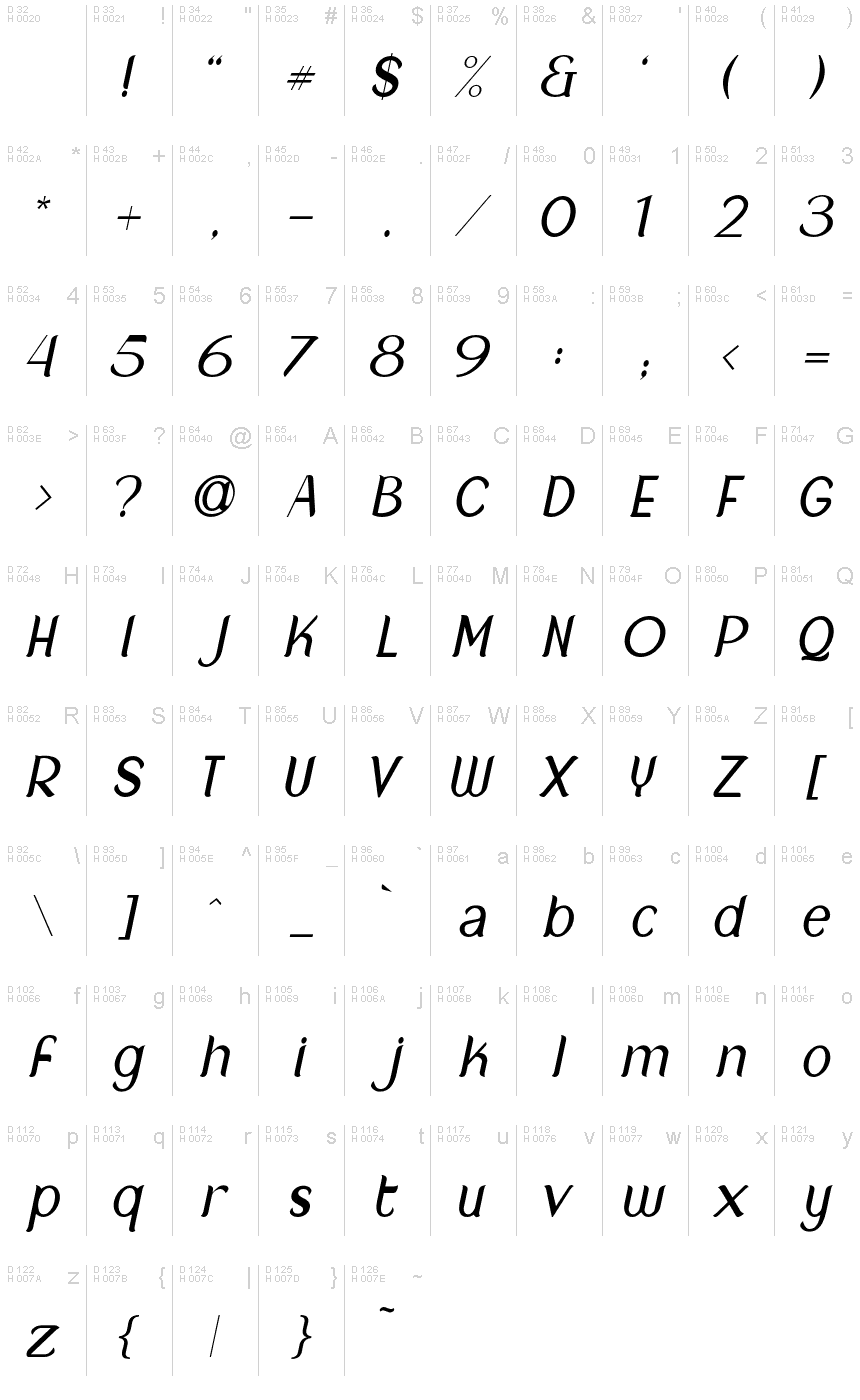
New Crown is a display sans font. Comes with 8 fonts family. Great for logotype, branding, packaging design, poster design, website / display, editorial, headline, and more.
1. Uppercase and lowercase characters
2. Supports international languages
3. Opentype features: alternates and ligatures.